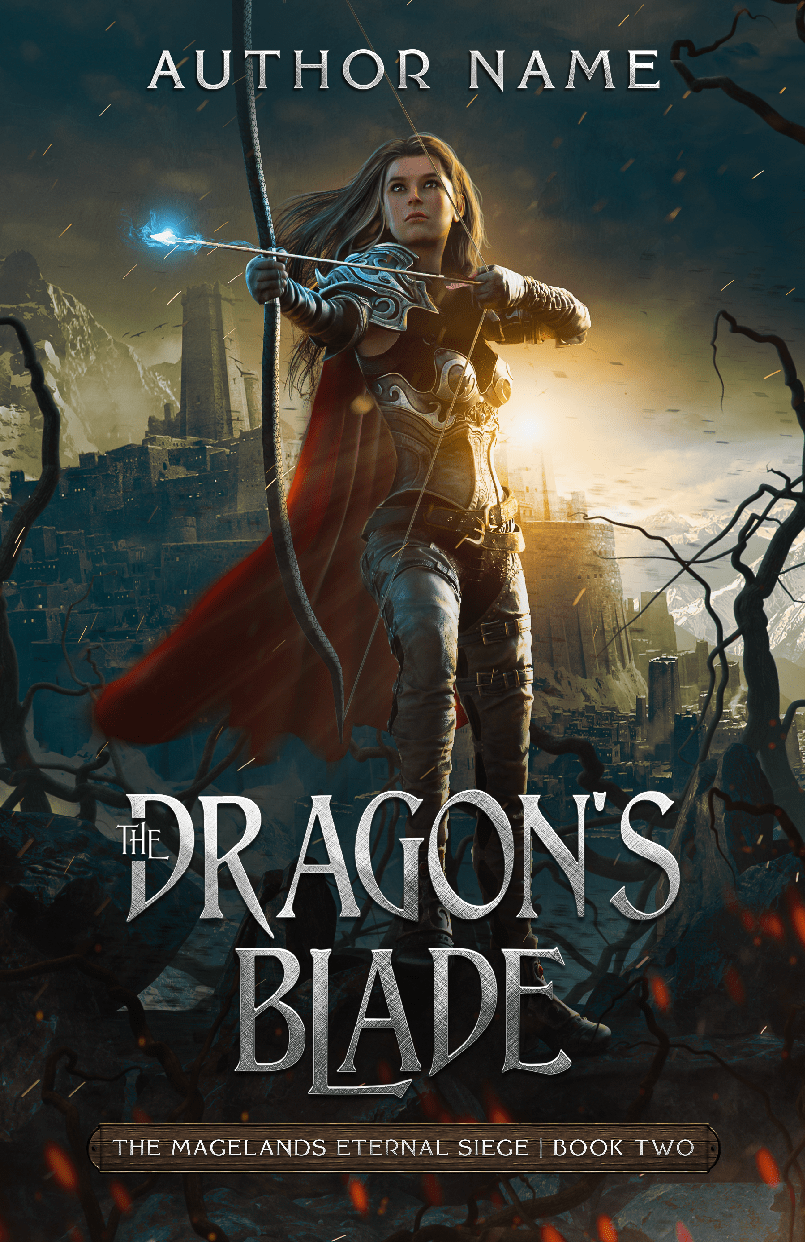
Best Fonts For Fantasy Book Covers
Best Fonts For Fantasy Book Covers. A beautiful font for fantasy and urban fantasy covers, with diverse variations and stylized uppercase and lowercase letters. If those sites don't have the font you're looking.
Not to be confused with comics sans, comic runes sits at a cool place as a fantasy font. So, let's dig right in with a discussion on book cover design fonts. Best fonts for fantasy book covers.
25 Fonts For Science Fiction & Fantasy.
What are some good fonts for fantasy book covers? It’s bold, sharp, and comes with over 400. I started this list months ago, working on a.
If You Want Inspiration And Ideas For Effective Fantasy Book Cover Design, Check Out Our Article Fantasy Book Cover Design:
The Best Fonts For Book Covers Might Depend On Things Like Genre, Audience, And More.
The Fantasy Genre Is Magical And Mystical Creatures,.
It Also Has An Antique Stroked.
Constaniz typeface is a font style that looks like something pulled from the 1940s noir era. Etna sans serif envato elements. This font is perfect for designing body text in all.